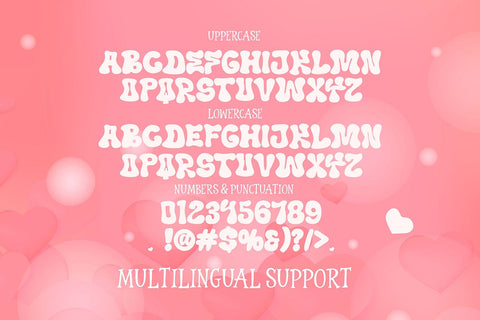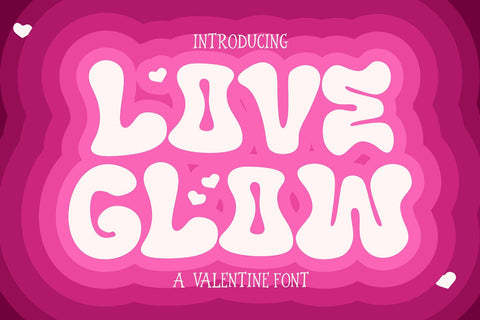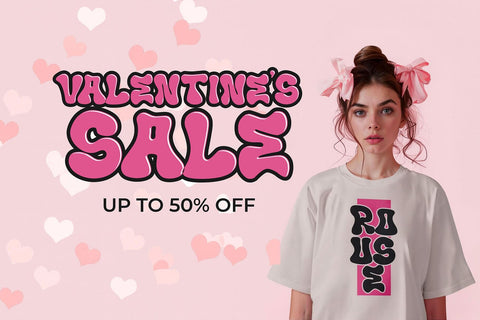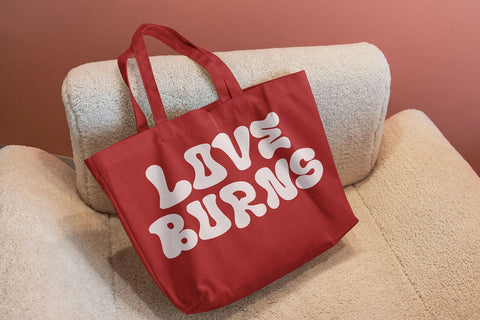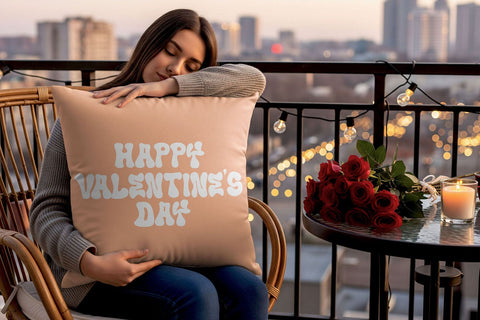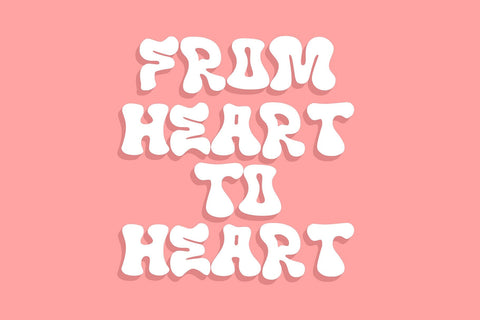
Love Glow – Cute Retro Valentine Display Typeface
Love Glow is a cute and retro-inspired display typeface designed to express warmth, joy, and affection through soft letterforms and playful shapes. Inspired by vintage love posters, Valentine cards, and nostalgic pop aesthetics, this typeface brings a cheerful romantic mood that instantly connects with viewers. Its rounded curves, bubbly proportions, and glowing personality make it perfect for projects that need a sweet, friendly, and eye-catching typographic voice.
This typeface is carefully crafted to balance charm and readability. Each character flows smoothly with soft edges and bold strokes, creating a visual rhythm that feels both fun and inviting. The playful forms give off a hand-drawn feel while maintaining a polished, professional structure suitable for both digital and print designs. Love Glow works beautifully as a headline typeface, logo lettering, and decorative text where emotion and personality are essential.
Love Glow is ideal for Valentine-themed designs, romantic branding, wedding invitations, greeting cards, posters, stickers, apparel graphics, social media visuals, and product packaging. Its cheerful retro vibe makes it especially suitable for lifestyle brands, candy packaging, children’s products, beauty brands, café menus, and creative merchandise. Whether used for love quotes, promotional campaigns, or playful branding, this typeface helps designs feel warm, joyful, and emotionally engaging.
The font includes both uppercase and lowercase characters, allowing designers to create dynamic layouts and expressive typographic compositions. The letterforms are designed to feel soft and friendly, making them highly versatile across different creative styles—from cute and whimsical to bold and nostalgic. Numbers and basic punctuation are included to support a wide range of design needs without breaking the visual harmony.
Love Glow supports multilingual characters, making it suitable for international projects and global branding. This makes it a reliable choice for designers who want to maintain consistency across different languages while preserving a romantic and playful aesthetic. The font performs well in posters, branding materials, editorial layouts, digital ads, and social media content where strong visual impact is essential.
From a branding perspective, Love Glow helps establish a memorable identity that feels approachable and emotionally resonant. The retro influence adds a sense of nostalgia, while the modern construction keeps the font fresh and relevant for contemporary design trends. This combination makes it a powerful tool for designers looking to create standout visuals that connect emotionally with audiences.
Love Glow is especially effective when paired with minimal layouts, pastel color palettes, or bold contrast backgrounds. Its thick strokes and rounded shapes ensure excellent visibility even at smaller sizes, while its decorative nature shines at larger display scales. This makes it suitable for everything from packaging labels to billboard headlines.
Whether you are designing for Valentine’s Day campaigns, romantic merchandise, playful branding, or nostalgic creative projects, Love Glow delivers a charming and expressive typographic solution. Its cute retro personality adds warmth and personality to any design, helping your message stand out with love, joy, and timeless charm.